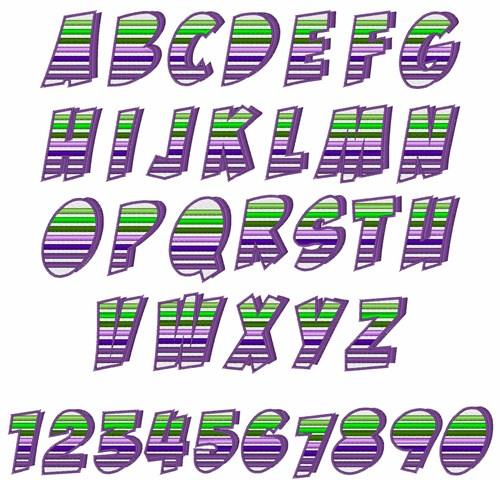
Embroidery Patterns is happy to present Stripe 3D Embroidery Font - Decorative 3D Lettering - Home Format - PES, DST & 11 formats machine embroidery font which has Bold stripe 3D machine embroidery font in vibrant purple and green, perfect for stand-out projects like banners and jackets. Available in PES, DST, and 11 other formats. included. If you would like to view more embroidery fonts and alphabets please search our embroidery fonts page.
4 heights: 1.5″, 1.75″, 2″, 2.25″.